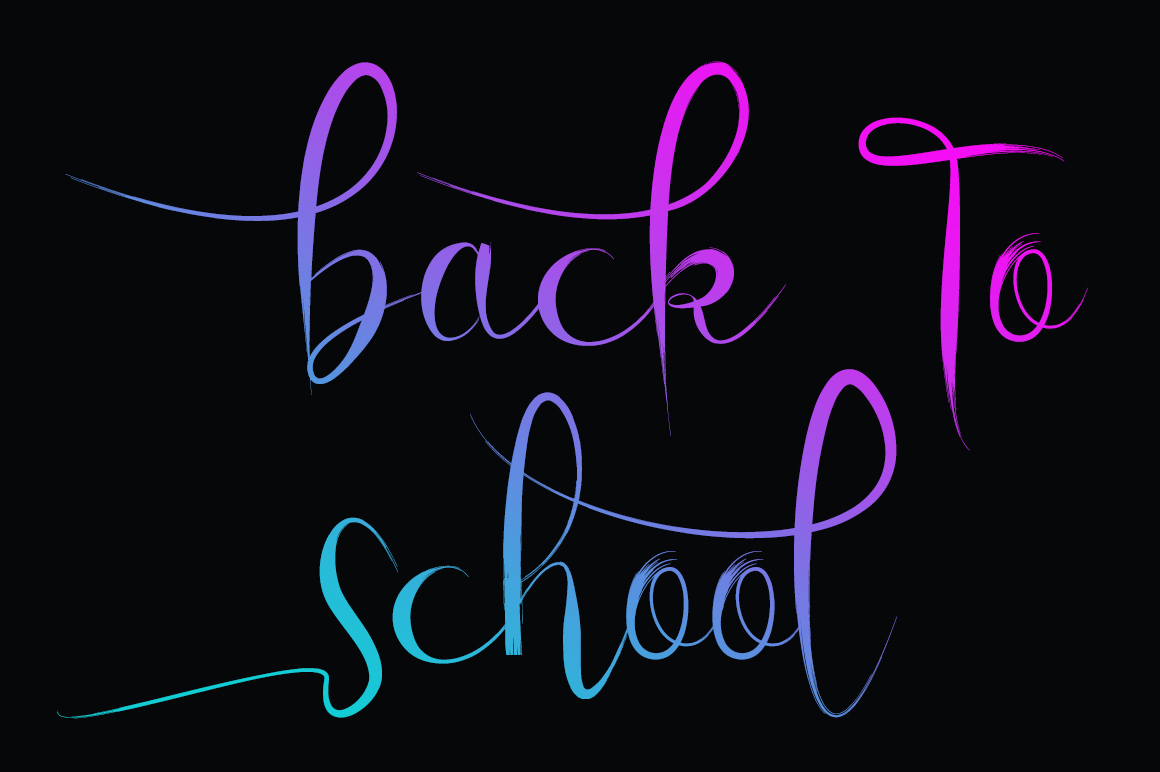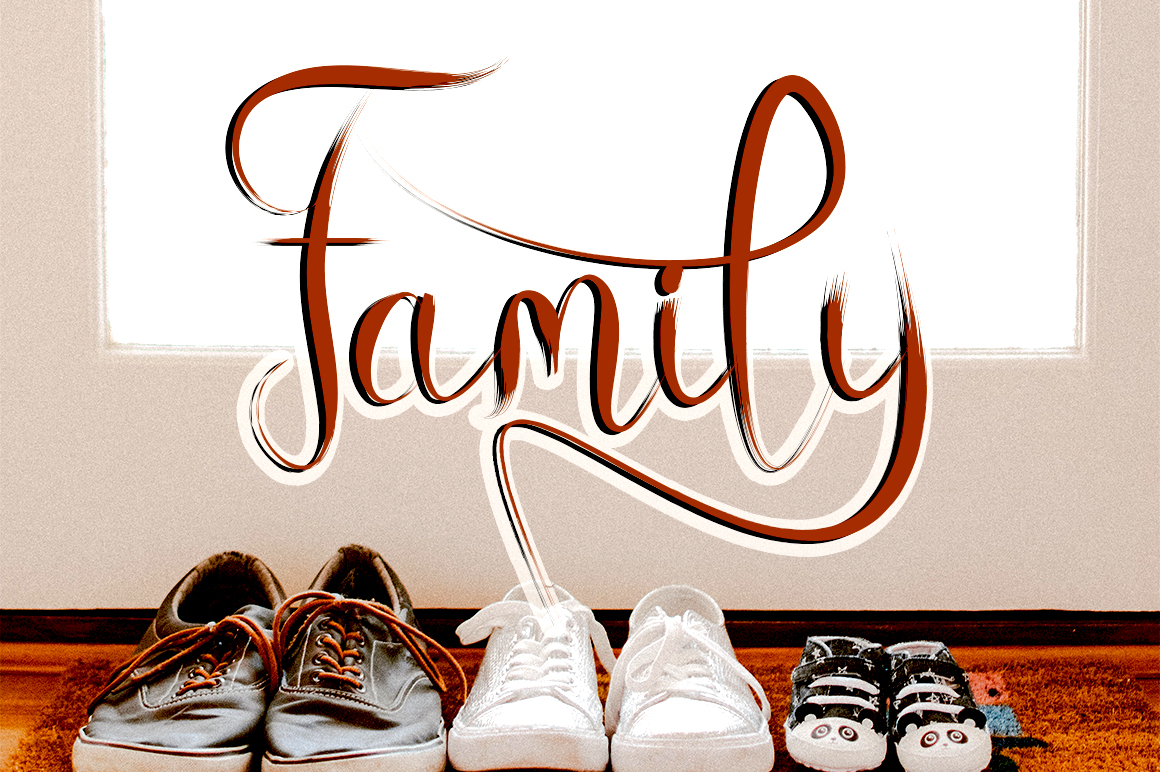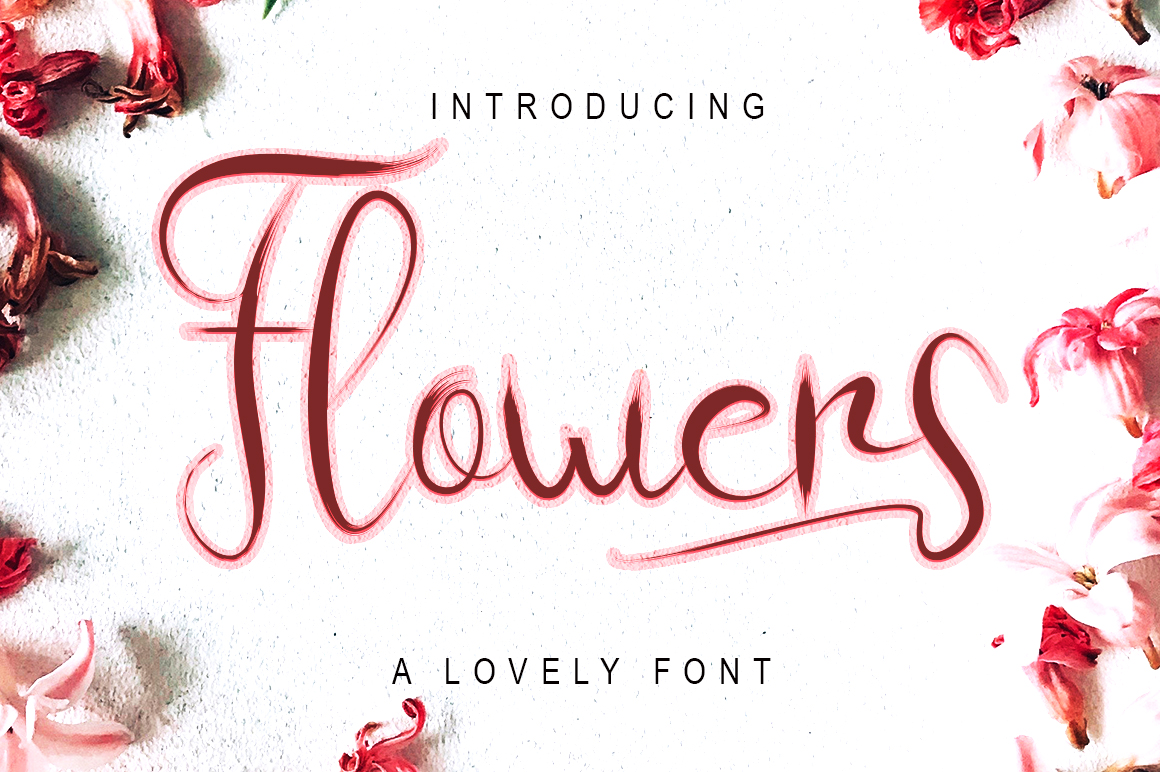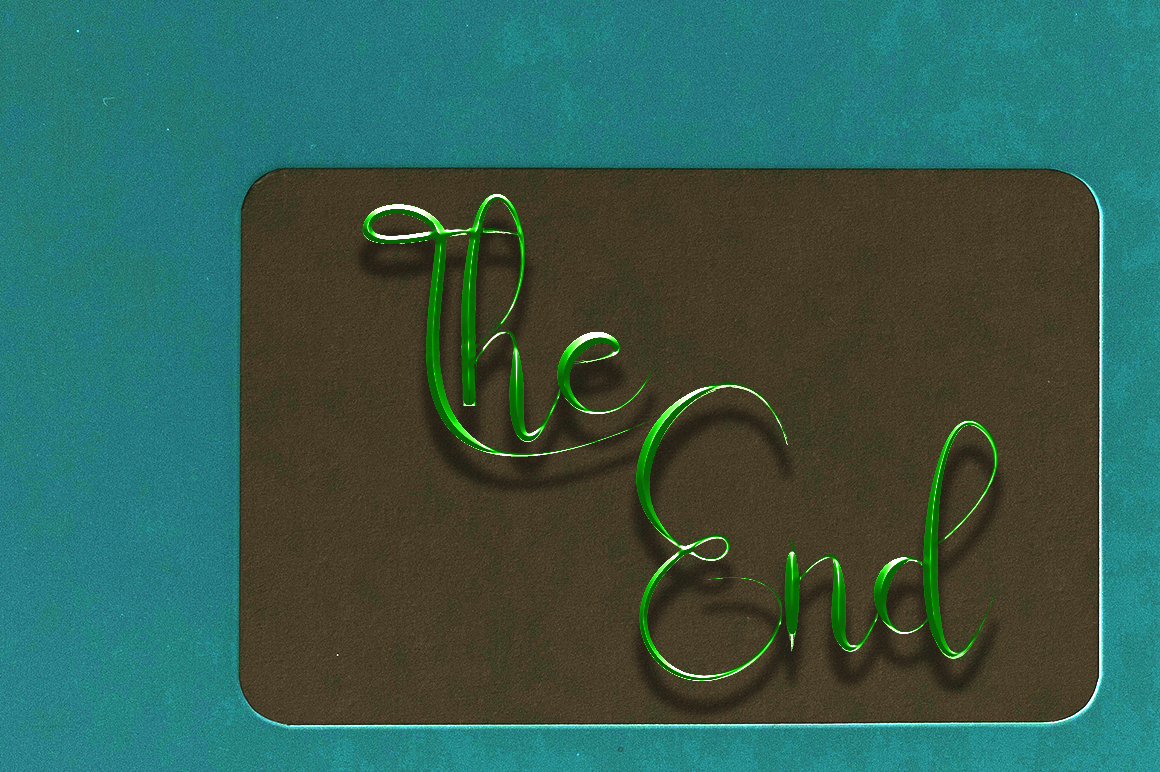
Vintage Script Font
This is a beautifully flowing handwritten font, perfect for your most creative projects and ideas. Use it on invitations, wedding designs, personal branding, social media, marketing campaigns, or other projects that need beautiful typography.